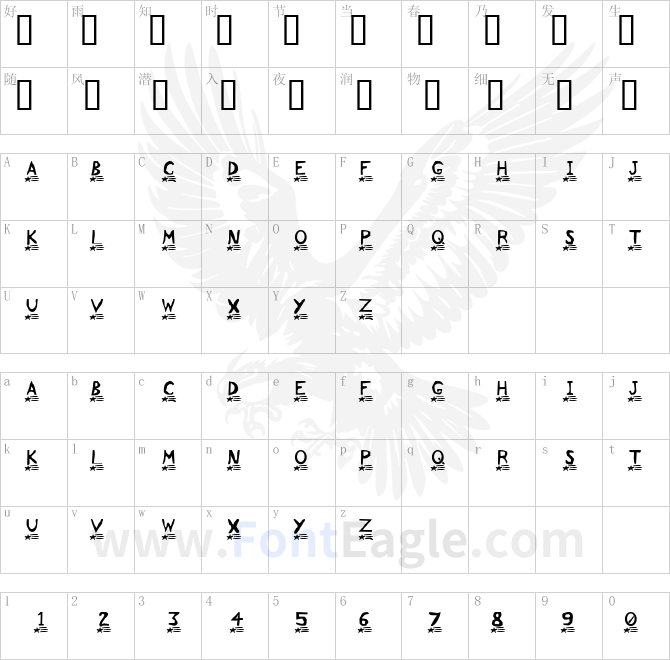
JI-Smeary is a great font, widely used in graphic design, single-page menu design, poster design and other fields, and is deeply loved by designers.JI-Smeary download.